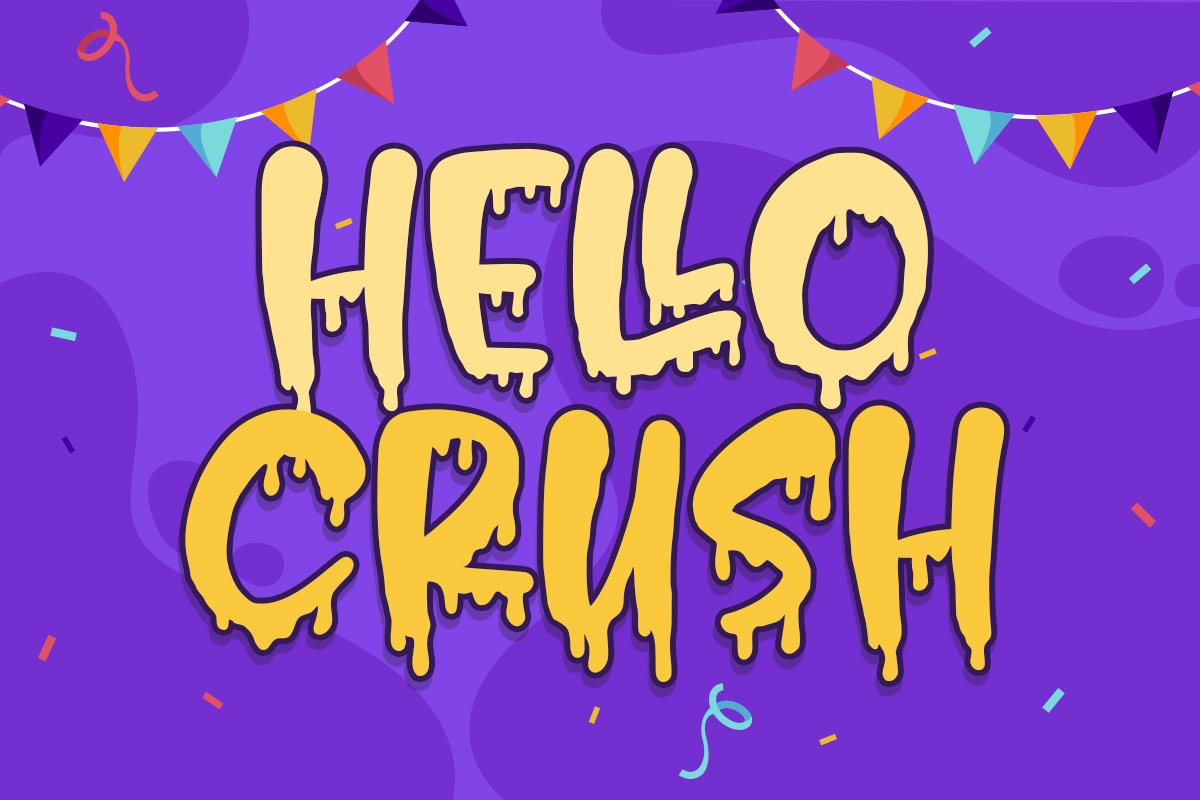
Hello Crush - Halloween Font
Hello Crush
Hello Crush is an eye-catching Halloween themed font, wrapped in a playful design. Use this unique display font to create stunning party invitations or to bring your crafting ideas to life!